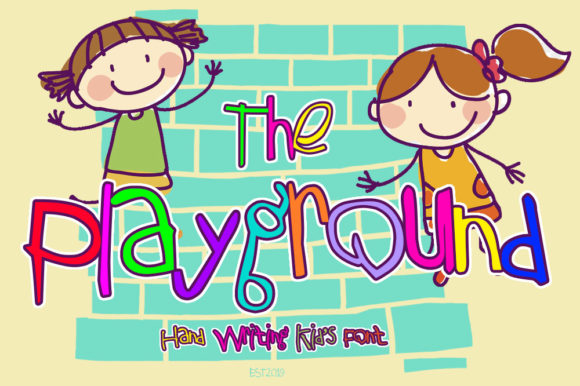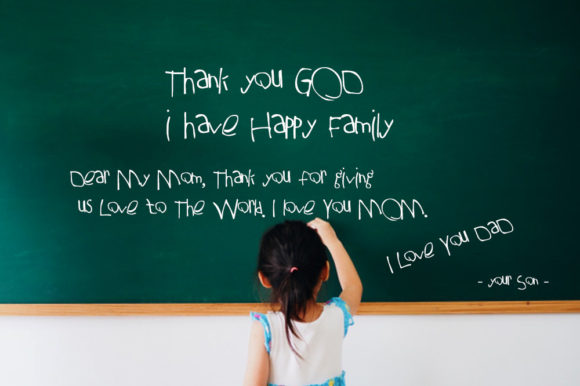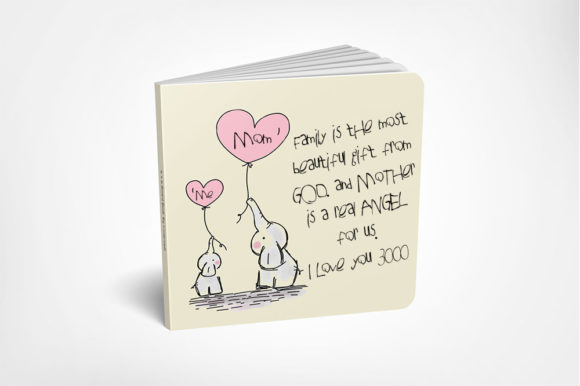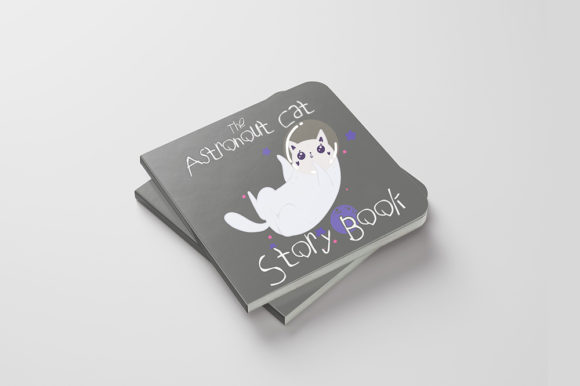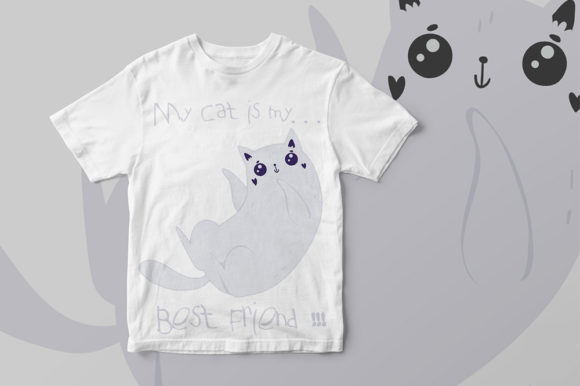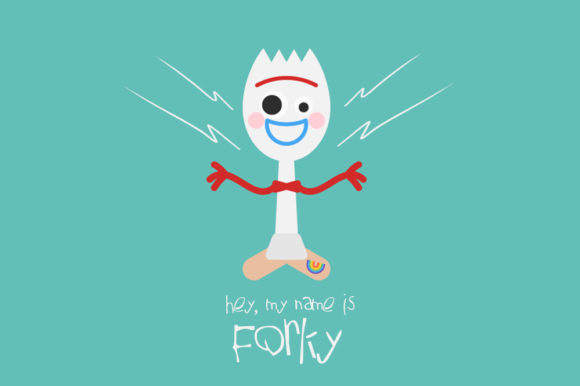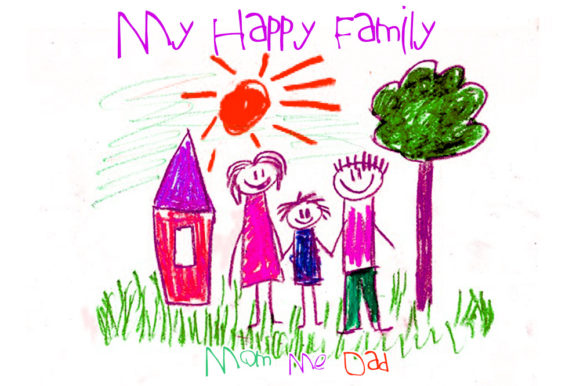
HomeScript FontsThe Playground Font Script Fonts The Playground Font FacebookXPinterestWhatsApp The Playground Font Poster 2 The Playground Font Poster 3 The Playground Font Poster 4 The Playground Font Poster 5 The Playground Font Poster 6 The Playground Font Poster 7 About The Playground Font Inspired by children’s handwriting, The Playground is a fun and whimsical font with a whimsical feel. DOWNLOAD NOW People also explored Gentle Remind Font Purification Font Welly Font Ephorbia Font Special Noodle Font Better Font Candy Font Quick Note Font Beautiful Marry Font 298 0 TagsThe Playground Font Previous articleAzkanio Script FontNext articleMy Heart Font LEAVE A REPLY Cancel reply Comment: Please enter your comment! Name:* Please enter your name here Email:* You have entered an incorrect email address! Please enter your email address here Website: Save my name, email, and website in this browser for the next time I comment. Personal Use Free Butter Belly Personal Use Free Read more about this font Squariess Personal Use Free Read more about this font Jabirah Personal Use Free Read more about this font Rheiborn Personal Use Free Read more about this font BLOG How to Cut Any Font on Cricut: Convert a Font to SVG (Free) Turn any font into a clean SVG so it cuts crisp on Cricut - a quick 3-step workflow using a free font-to-SVG tool. Exploring Font Trends Top 10 Handwritten Fonts That Elevate Your Designs Elegant Wedding Invitation Fonts – Handwritten & Script Fonts